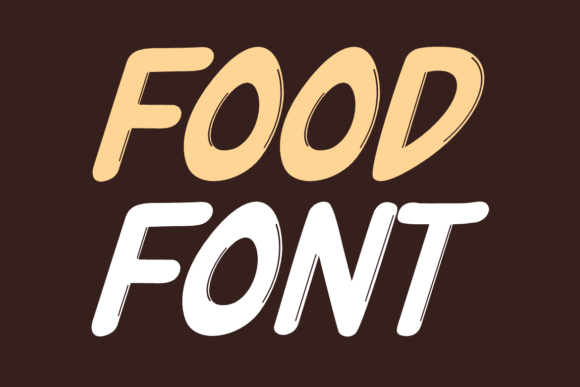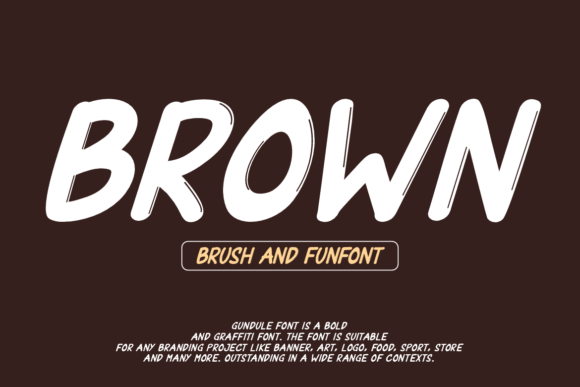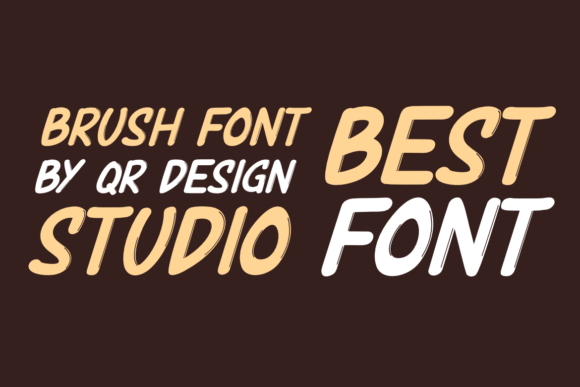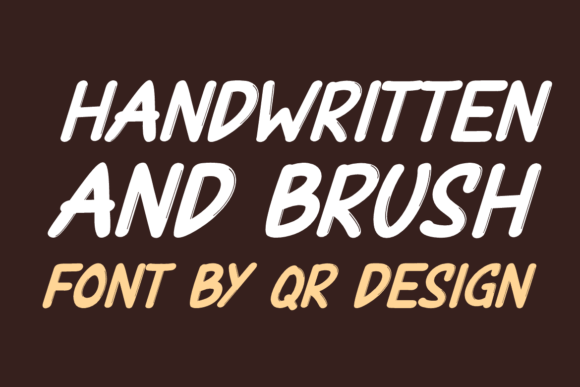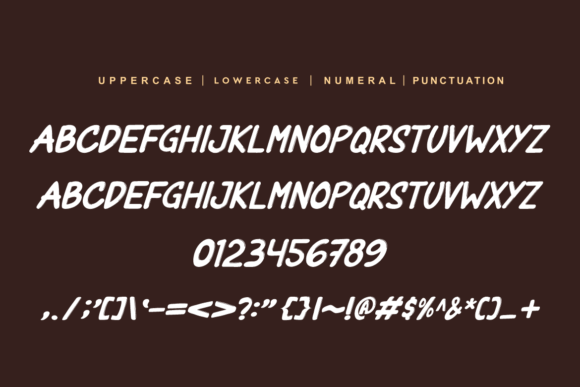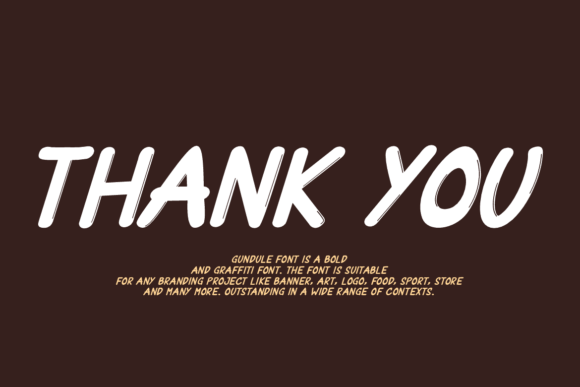
Introduction to Gundule Font
Have you ever been stuck on a creative project, unable to find the perfect font to bring your vision to life? I know I have. Remember that one late night, frantically scrolling through design resources, desperate for a font that would elevate my design to the next level? That’s where the Gundule Font comes in – a game-changer for designers like you and me.
With its quirky, offbeat charm, the Gundule Font is the perfect addition to any design project. Whether you’re working on a high-quality brochure, a free download template, or a creative project that requires a bit of whimsy, this font is sure to impress. Its unique style and versatility make it an ideal choice for designers who want to add a touch of personality to their work.
But what really sets the Gundule Font apart is its ability to stand out on even the most minimalist designs, thanks to its transparent background and sleek, modern aesthetic. Trust me, this font is about to become your new go-to design resource.
Key Features of Gundule Font
- Available in 2 styles (Regular and Bold) and 2 font weights, providing versatility for various design applications.
- Perfect for use in logos, branding, and other design projects where a distinctive and creative touch is required.
Honest Review: Gundule Font
I recently had the opportunity to work with the Gundule Font, and I’m excited to share my thoughts on this design resource.
One of the things that stands out about the Gundule Font is its unique aesthetic. It’s perfect for creative projects that require a touch of elegance and sophistication.
Here are some of the features that work well:
- ✨ High quality design that looks great on any background
- ✨ Easy to read and use in both digital and print projects
However, I did encounter some limitations while working with the Gundule Font:
- ⚠️ Limited character set, which can make it difficult to use in complex projects
- ⚠️ Not ideal for projects that require a transparent background, as the font doesn’t support this feature
Overall, I’m impressed with the Gundule Font’s unique design and high quality. While it may have some limitations, it’s a great resource for designers who need a stylish and elegant font for their creative projects.
Tips for Getting the Most Out of Gundule Font